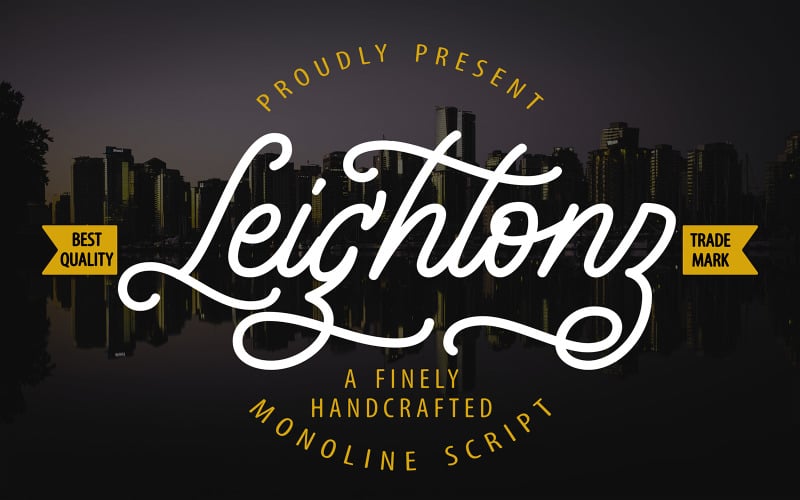
Leightonz | A Finely Handcrafted Monoline Scrip Font
**Leightonz | A Finely Handcrafted Monoline Script** with a calligraphy style, So beautiful on invitation like greeting cards, branding materials, business cards, quotes, posters, and more!